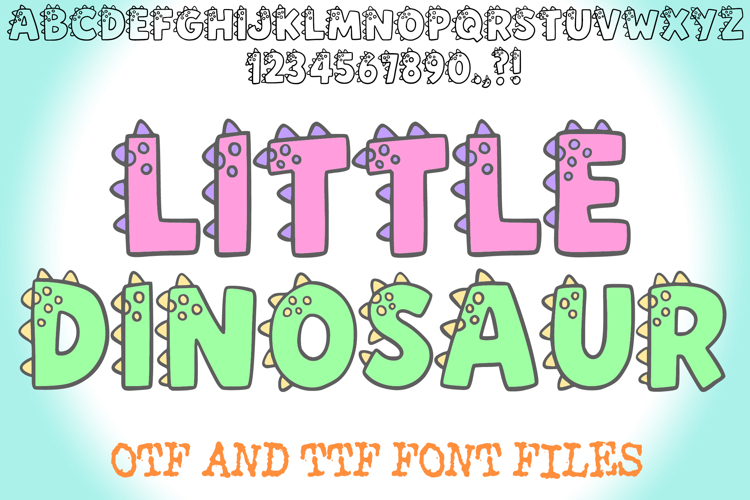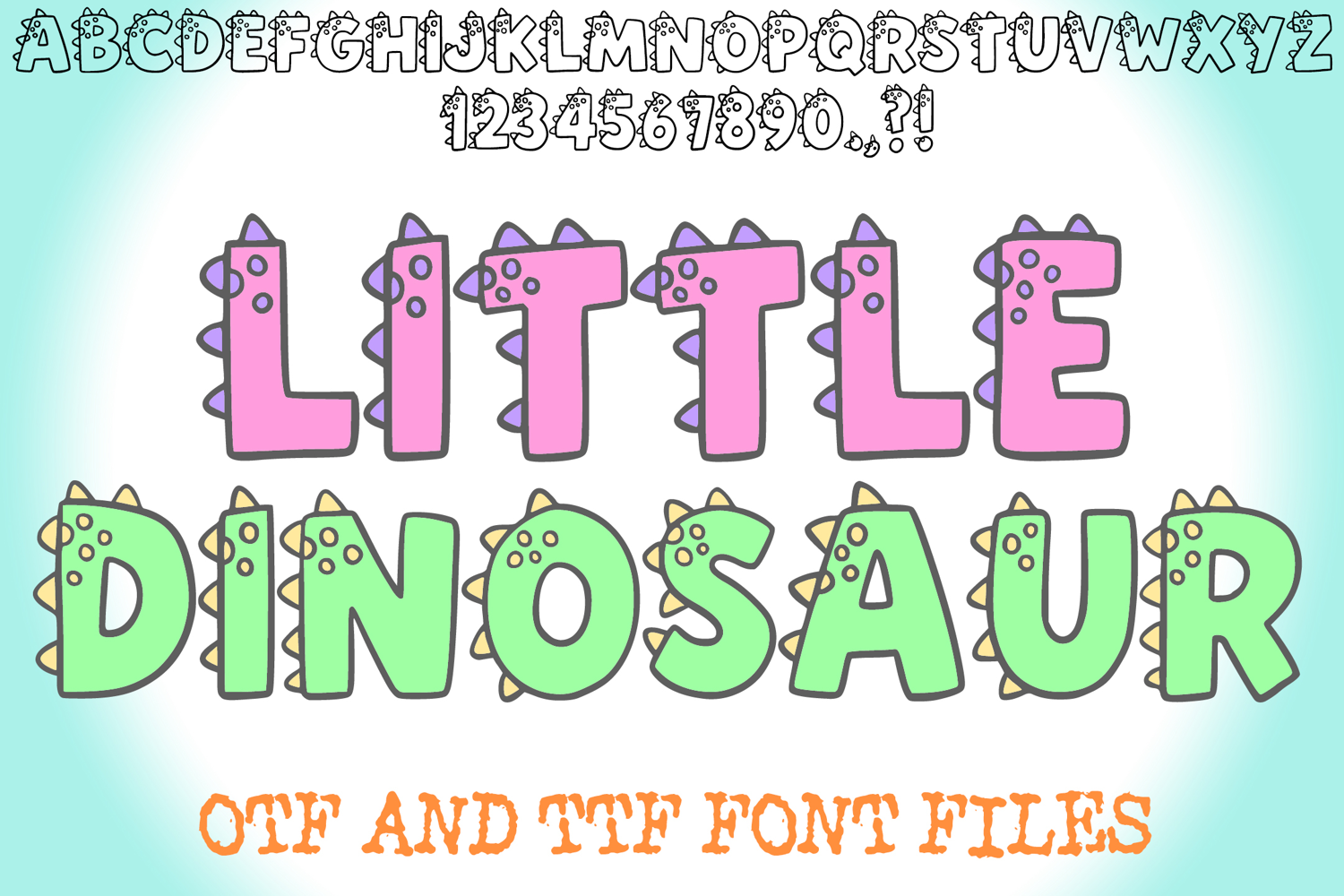
Dinosaur Font is a bold and adorable display font inspired by cute cartoon dinos. With chunky, rounded letters decorated with spikes and textures, it’s perfect for capturing kids’ attention in educational materials, birthday invitations, posters, and creative crafts. This font brings a playful Jurassic twist to any project, making learning and play even more fun!
A fun cartoon style font where you can create your own words and colour them to your vision!